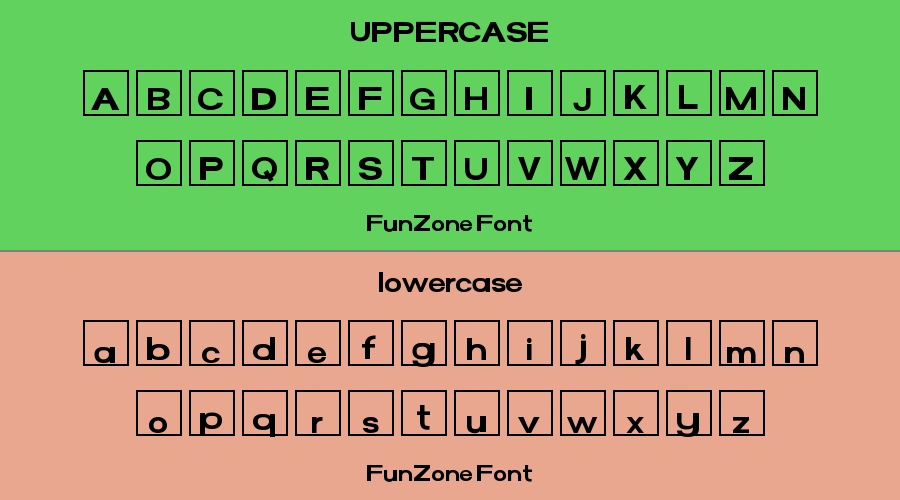
About FunZone Font
When typographic excellence matters most, FunZone Font delivers through its thoughtful blend of calculated proportions and color consistency. Specially crafted for packaging hero, it offers the adaptability and quality certification required for sophisticated design work. Every detail serves a purpose.
The character set showcases thoughtful details like tapered strokes alongside functional kerning pairs. This proves especially valuable in academic theses, where numerical alignment directly influences results. Particular attention was paid to counter size and regulatory compliance during development.